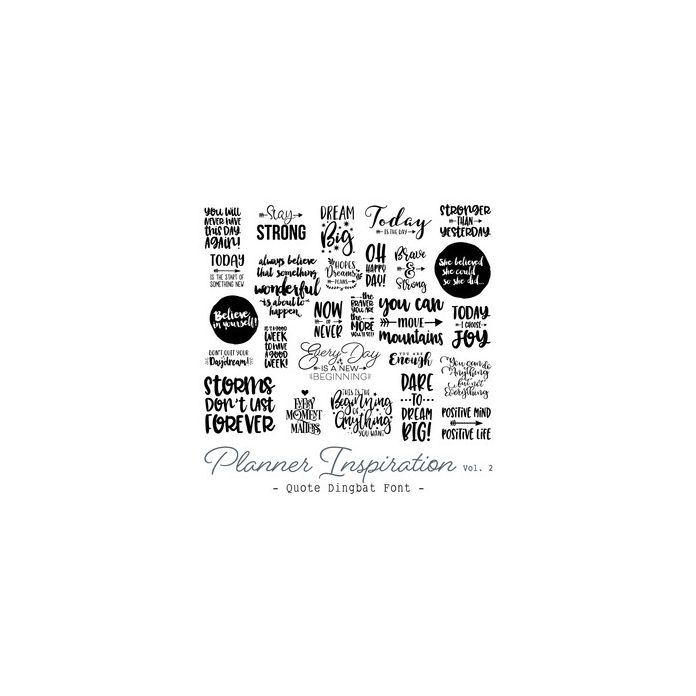
planner inspiration quote font
Planner Inspiration Volume 2 - Inspirational Quote Dingbat Font. Includes 26 inspirational quotes, perfect for planners, wall art, word art, vinyl, bible and faith journaling, scrapbooking, gifts and more!. All are assigned to an upper case letter starting with 'A' or can be accessed via glyphs. Volume 1 of this font is available here in the Silhouette store! For more design ideas, coordinating designs & products and inspiration, please visit my blog http://www.sarahhurleyblog.com